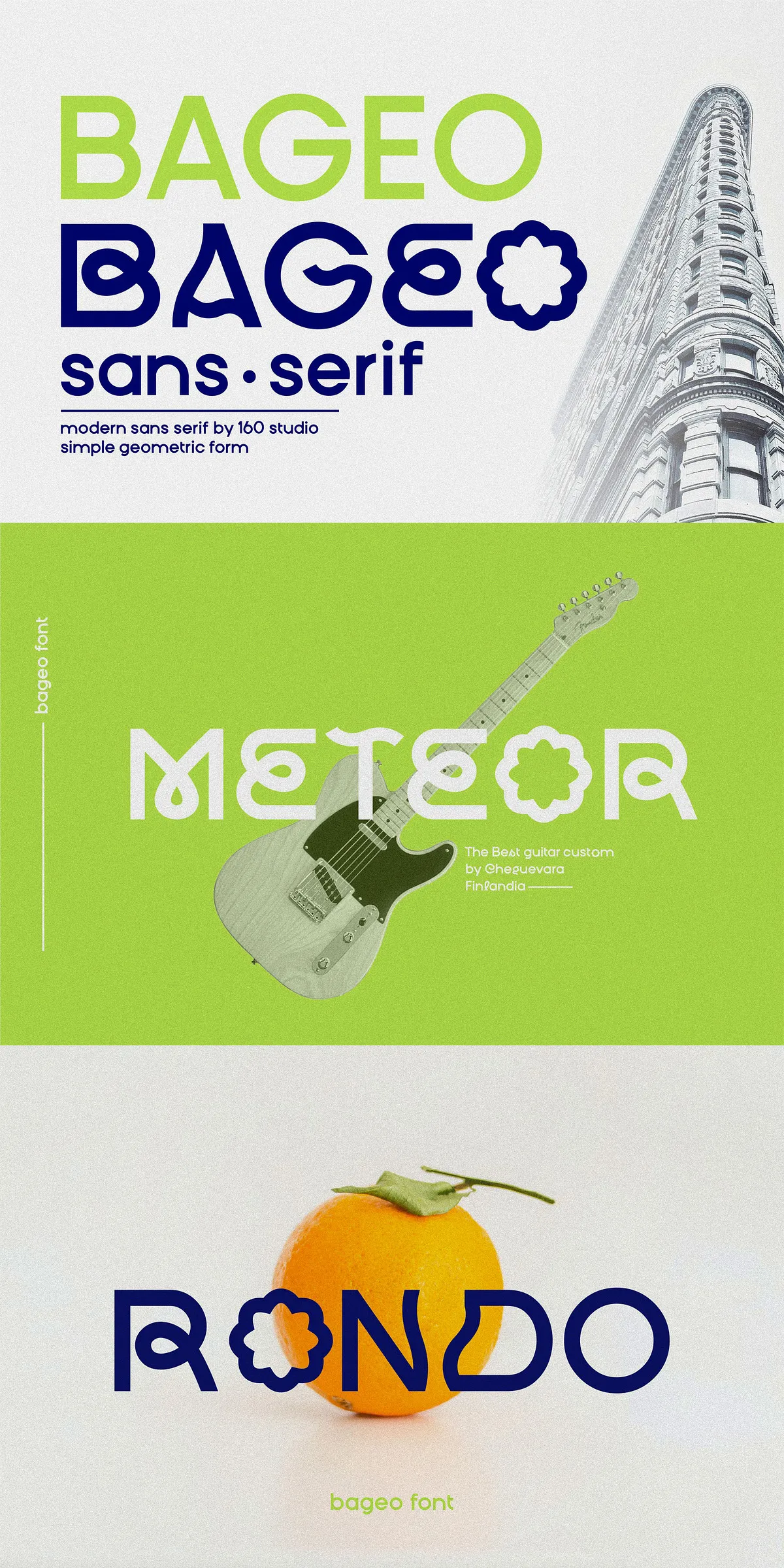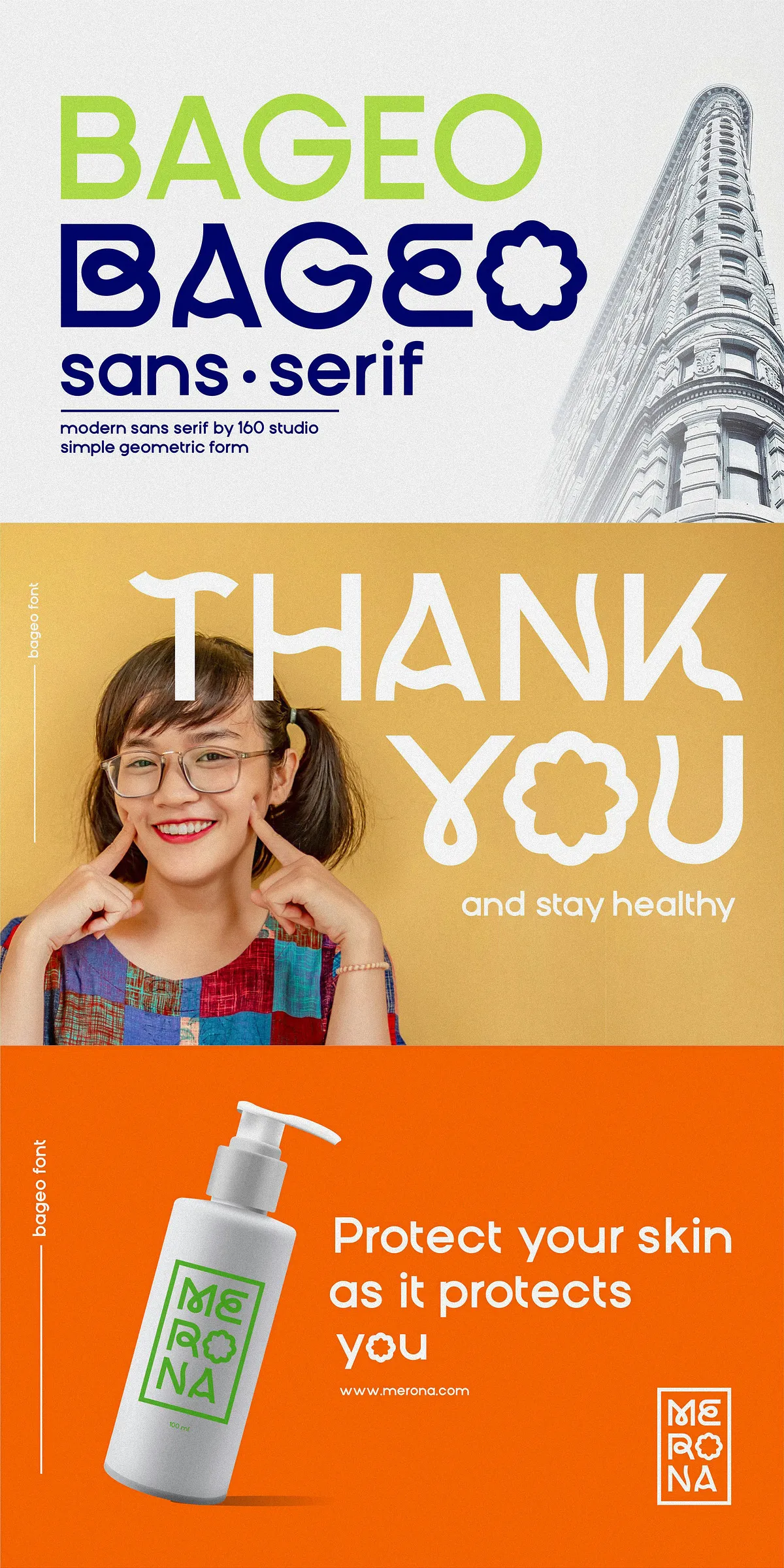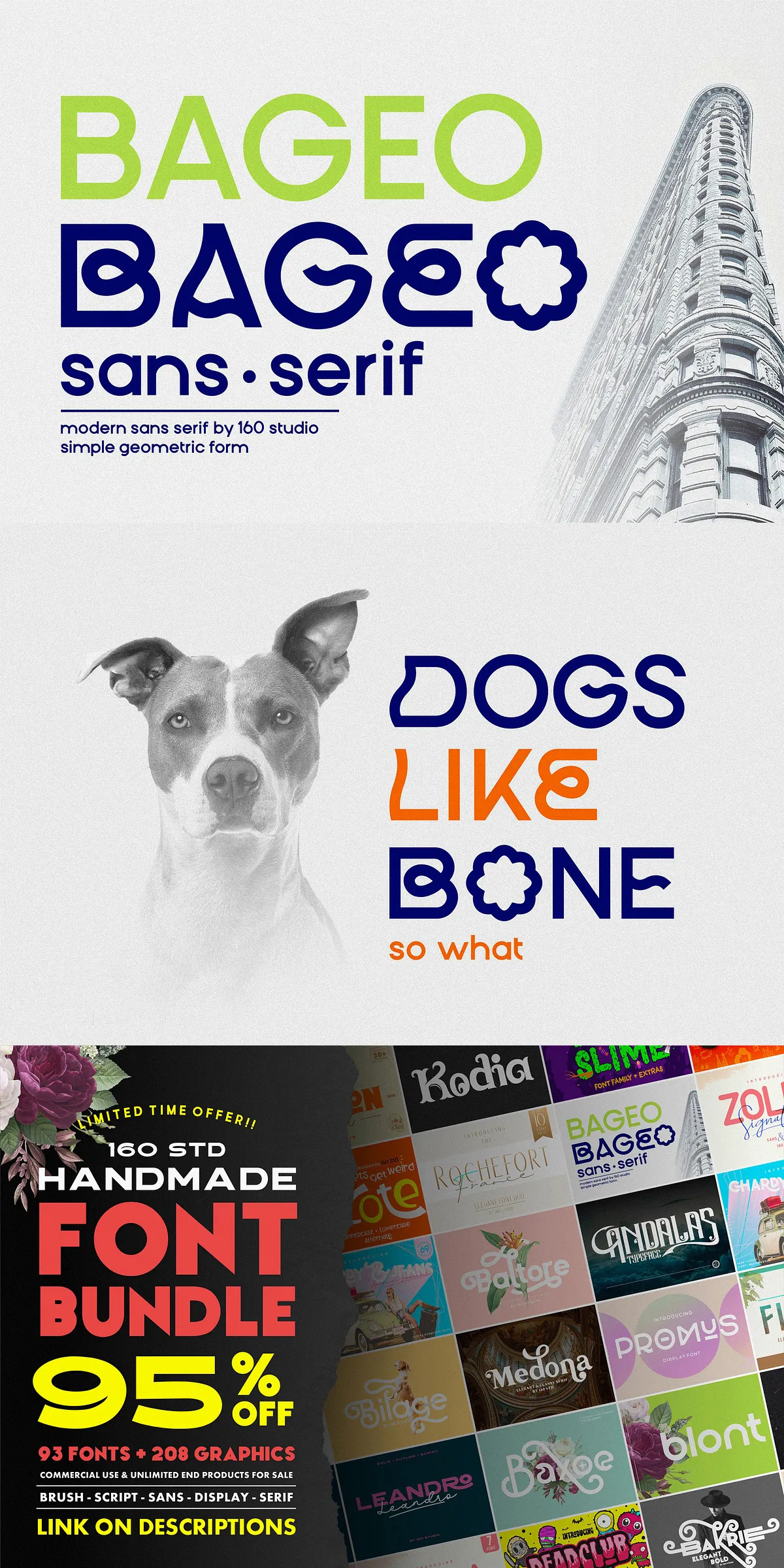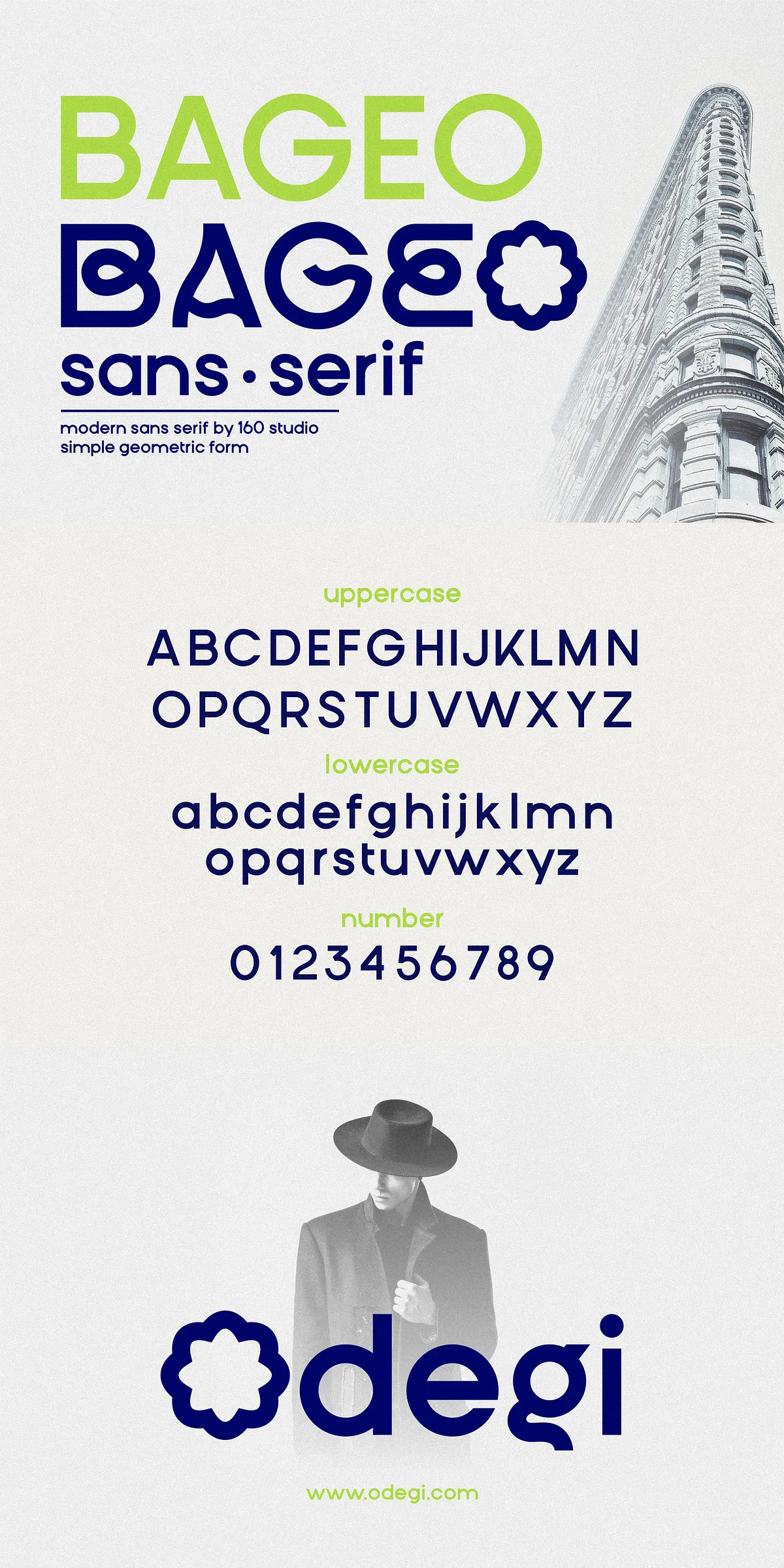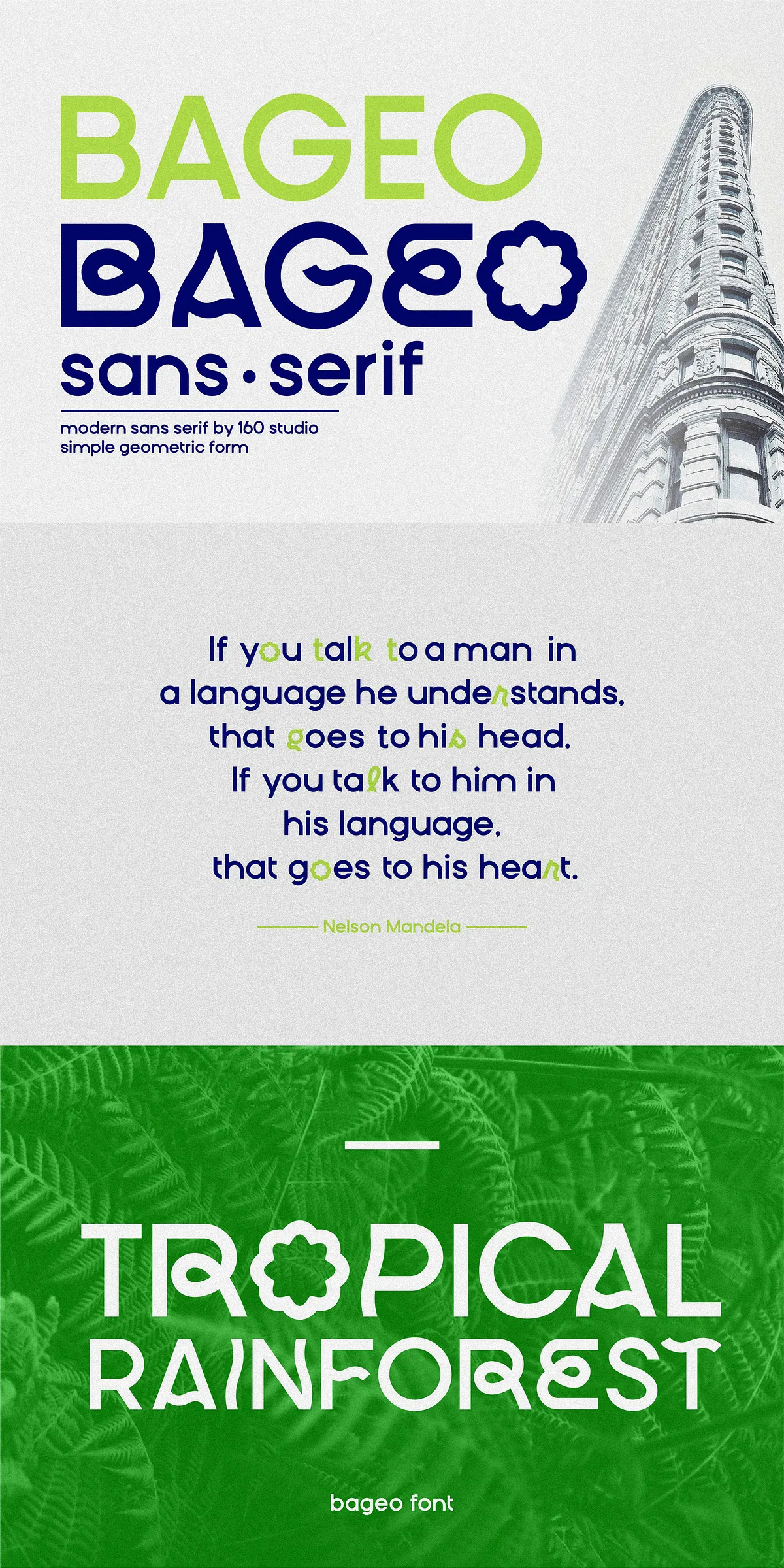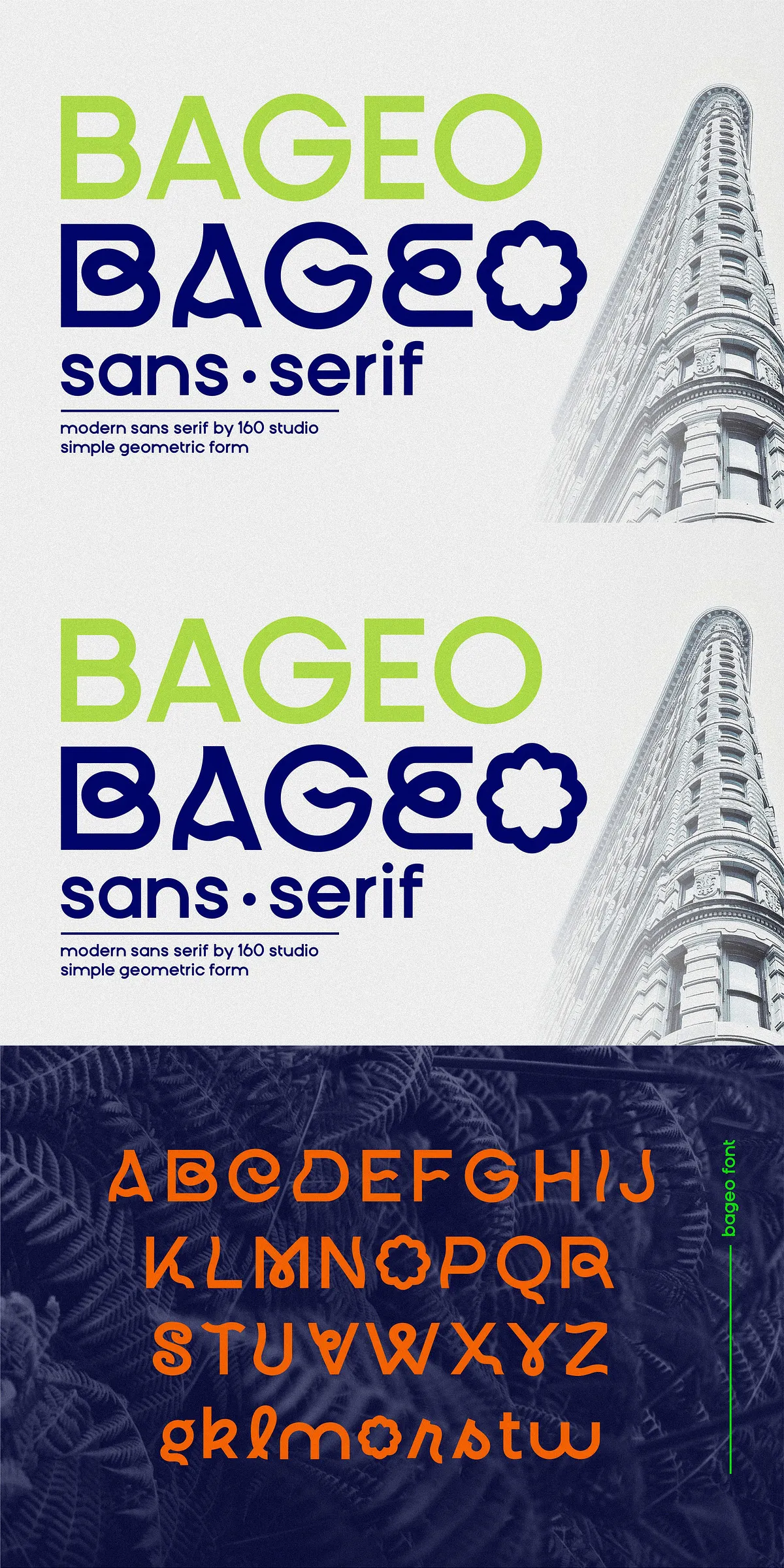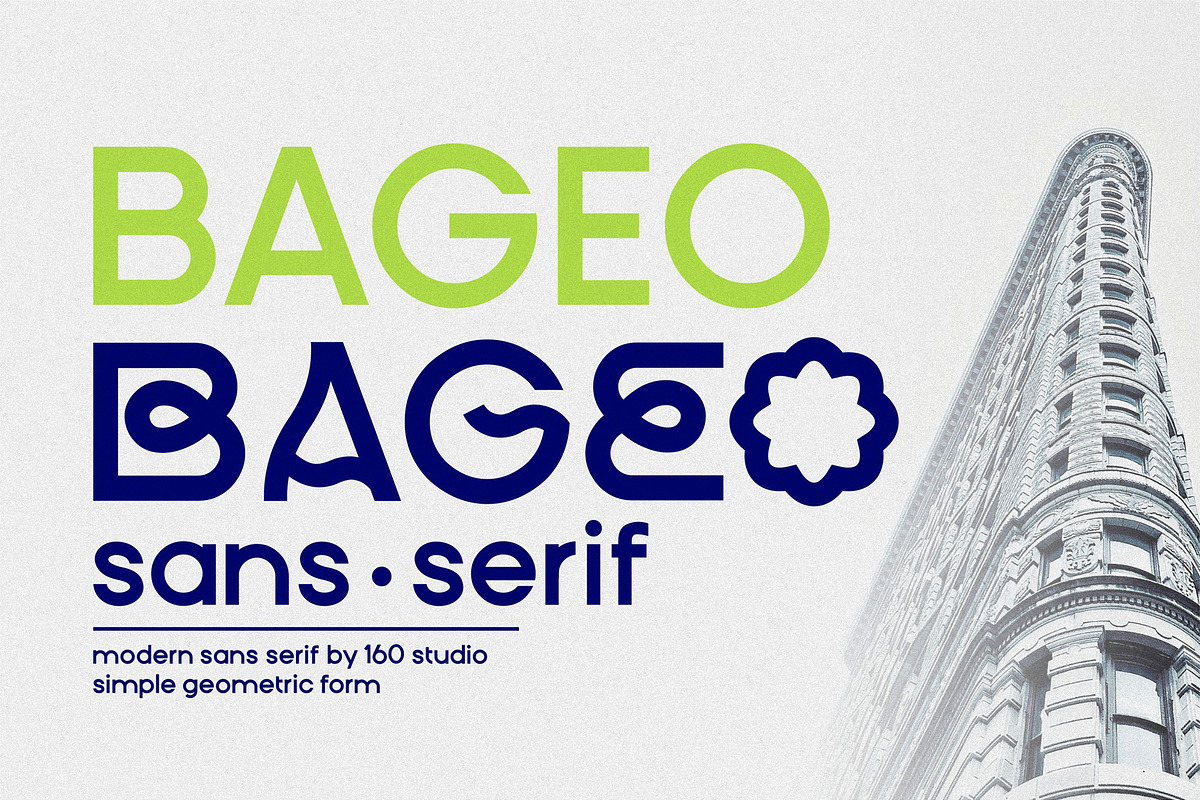
Unleash precision and polish with Bageo, a geometric sans-serif font engineered for maximum visual impact. Meticulously crafted with mathematical precision, Bageo delivers a sleek, contemporary aesthetic that commands attention. Its clean lowercase forms, perfect letter spacing, and geometric harmony create a polished, professional presence—ideal for designers who demand clarity, consistency, and cutting-edge style.
Engineered for Modern Design Excellence
Bageo isn’t just clean—it’s intentional. Every curve, stroke, and counterform is optimized for visual balance and legibility. The geometric foundation ensures flawless alignment across all characters, while the absence of ornamental flourishes keeps the focus on clarity and professionalism. Whether you’re designing a luxury logo, a high-impact headline, or a minimalist website interface, Bageo cuts through the noise with sharp precision and understated sophistication.
Unmatched Versatility Across Design Applications
From branding and editorial layouts to digital interfaces and package design, Bageo adapts seamlessly. Its structured yet approachable nature makes it a powerhouse solution for designers seeking a modern look without sacrificing readability. Use it for:
- Logos & Branding: Create strong, memorable identities with a timeless, elevated presence.
- Headlines & Titles: Command attention with bold, geometric authority.
- Web & App Interfaces: Deliver a crisp, responsive user experience with excellent screen performance.
- Product Packaging: Elevate your brand with a premium, minimalist feel.
Expanded Design Freedom with Exclusive Variants
Bageo goes beyond the basics. The latest update transforms it into a dynamic typeface family with powerful customization options:
- Alternates Version: Swap default characters for stylistic alternatives to create unique typographic expressions.
- Round Version: Soften the geometric edge with rounded terminals for a warmer, more approachable look.
- Italic Version: Add rhythm and flow to your text with a dynamic slant for emphasis and elegance.
- Updated Accent Support: Full multilingual compatibility with comprehensive accented character coverage—perfect for global projects.